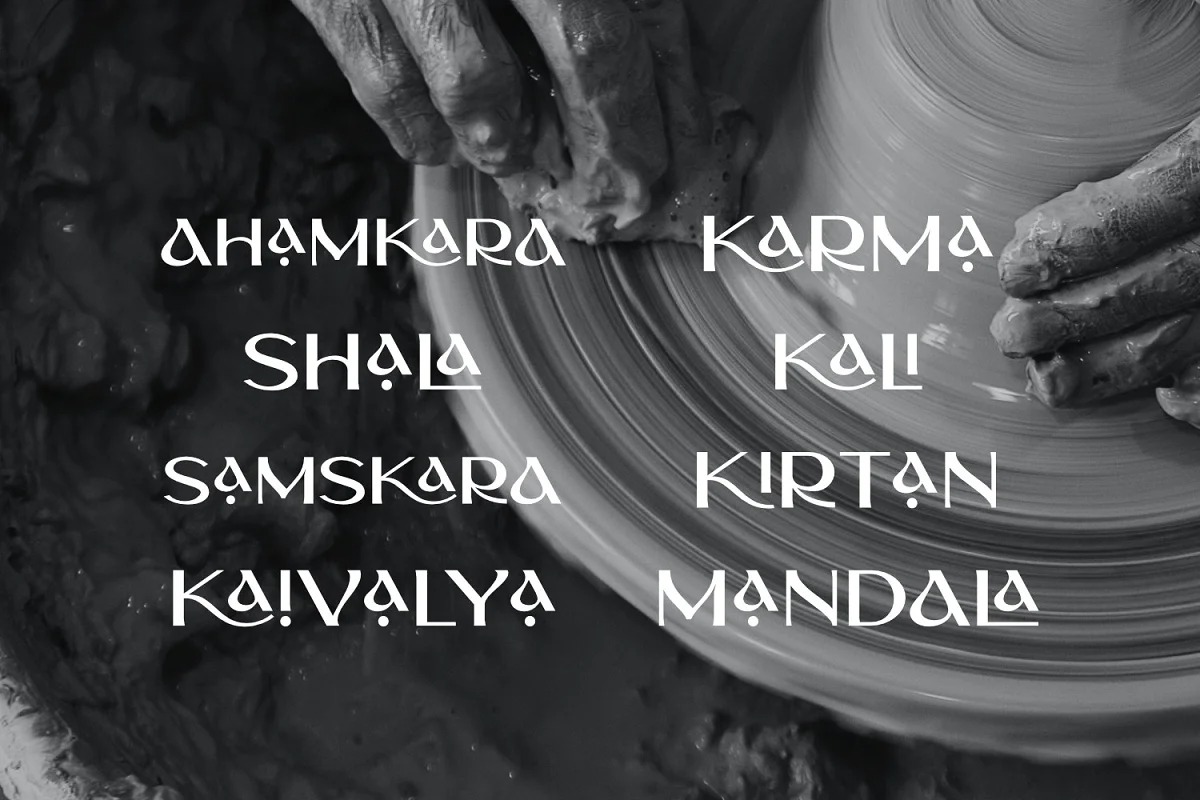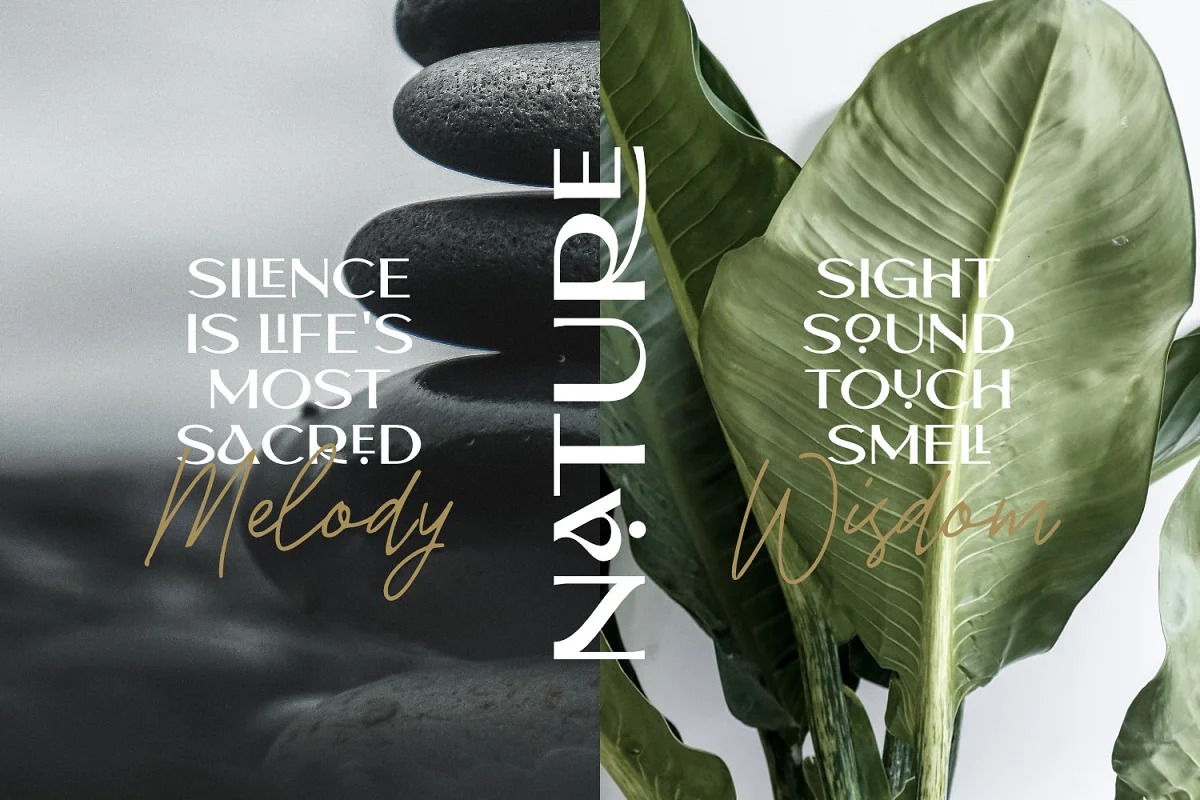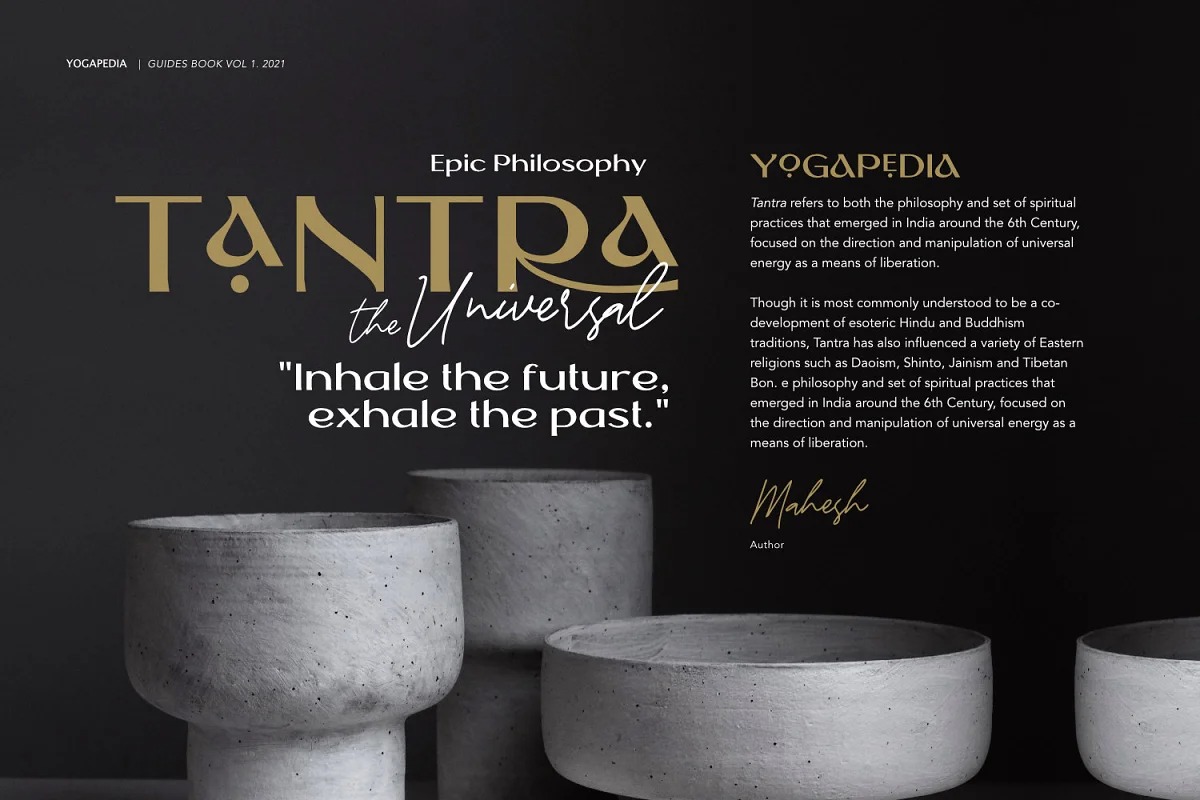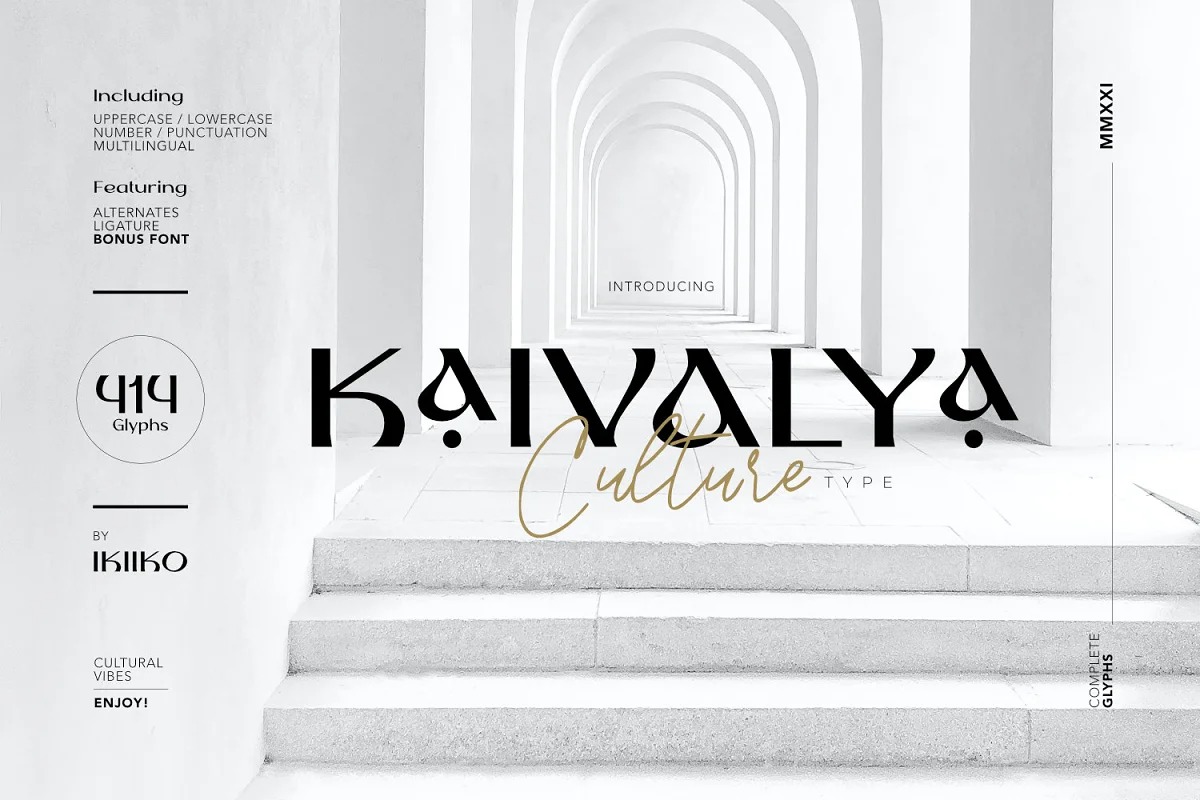
Kaivalya Font
Kaivalya Sans Serif Font is a display sans serif with simple, clean, and visual elegance. This typeface is perfect for an elegant logo, yoga & meditation stuff, beauty product, packaging product, spa, community logo, magazine, quotes, or simply as a stylish text overlay to any background image.